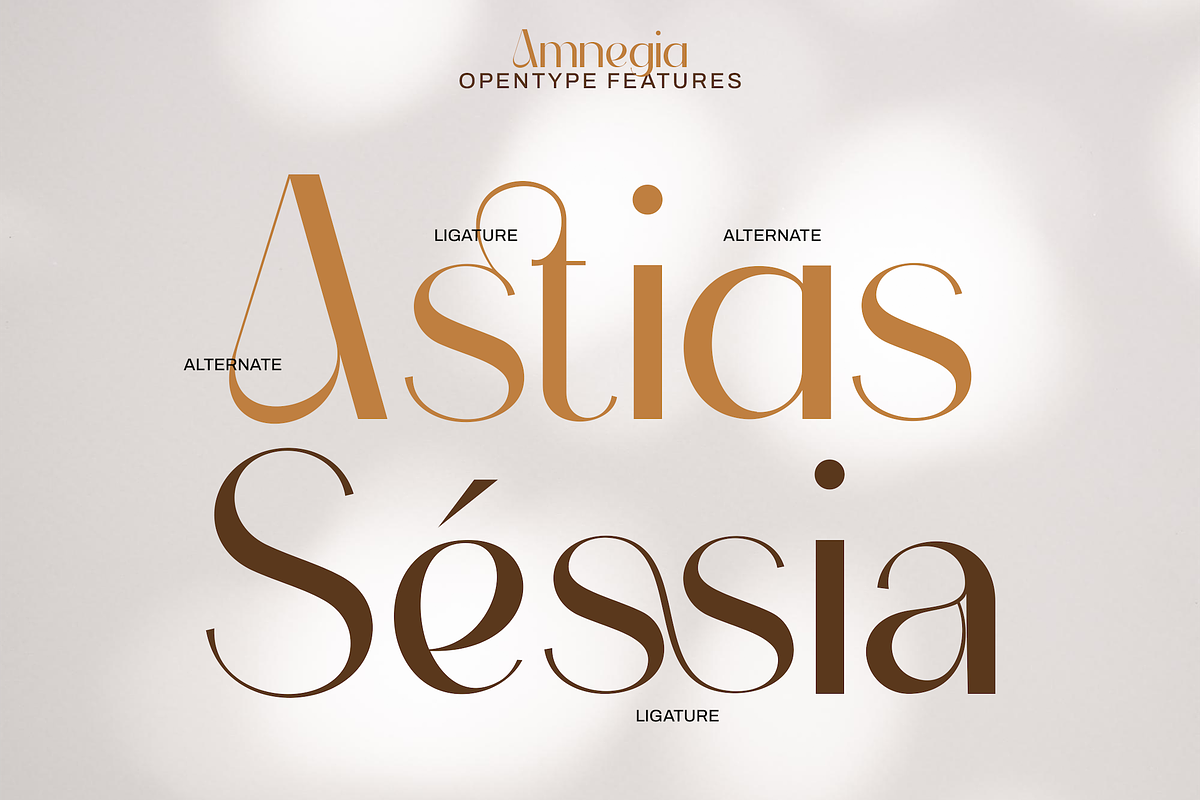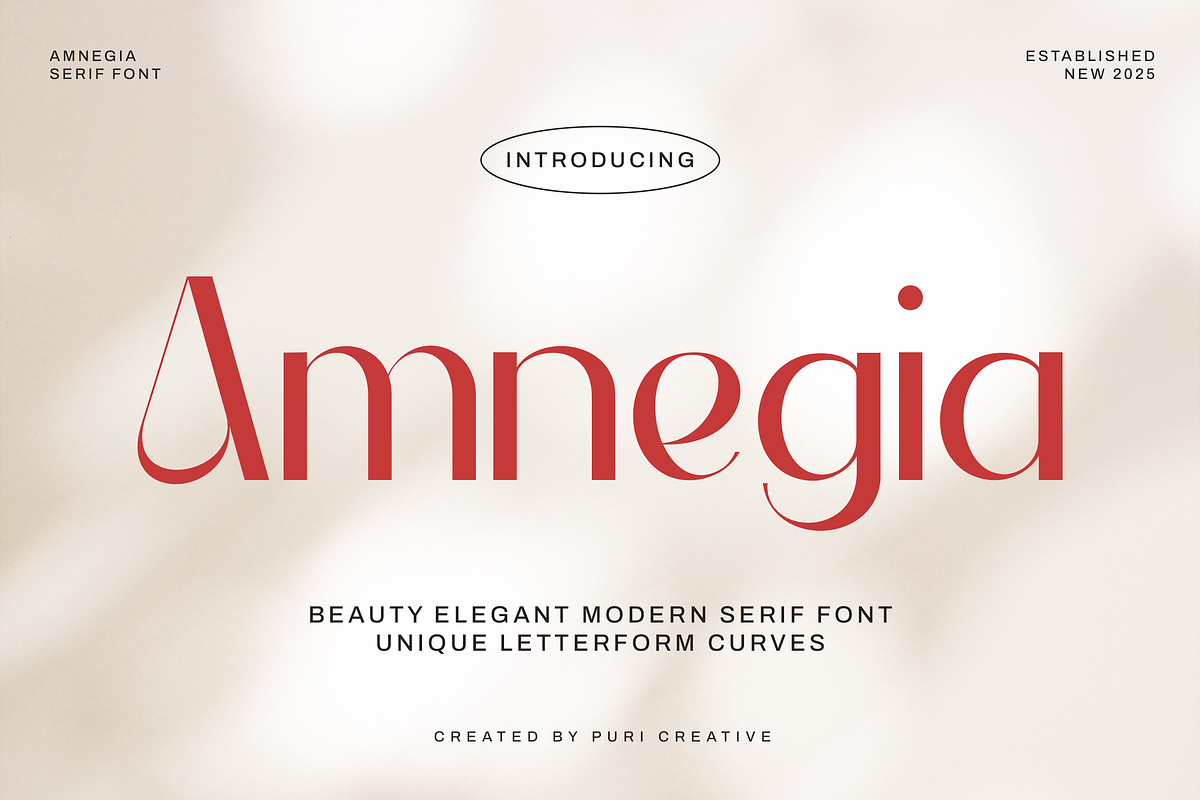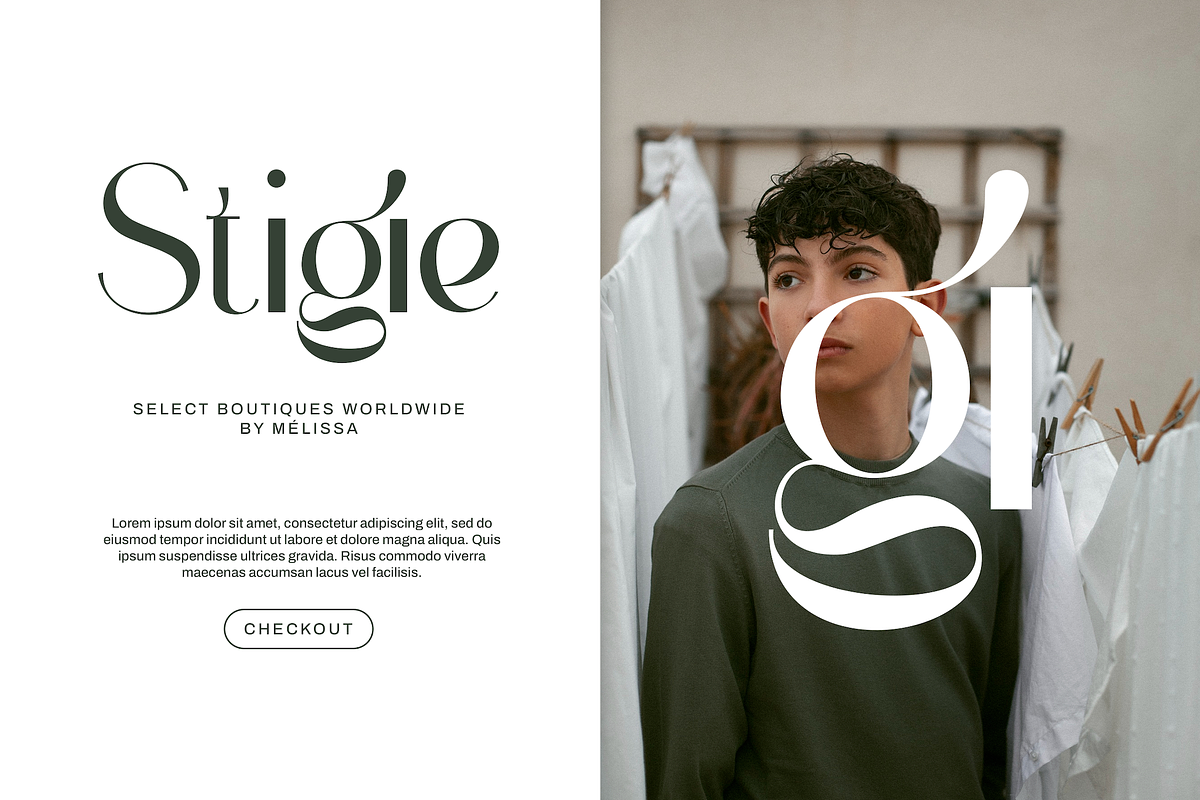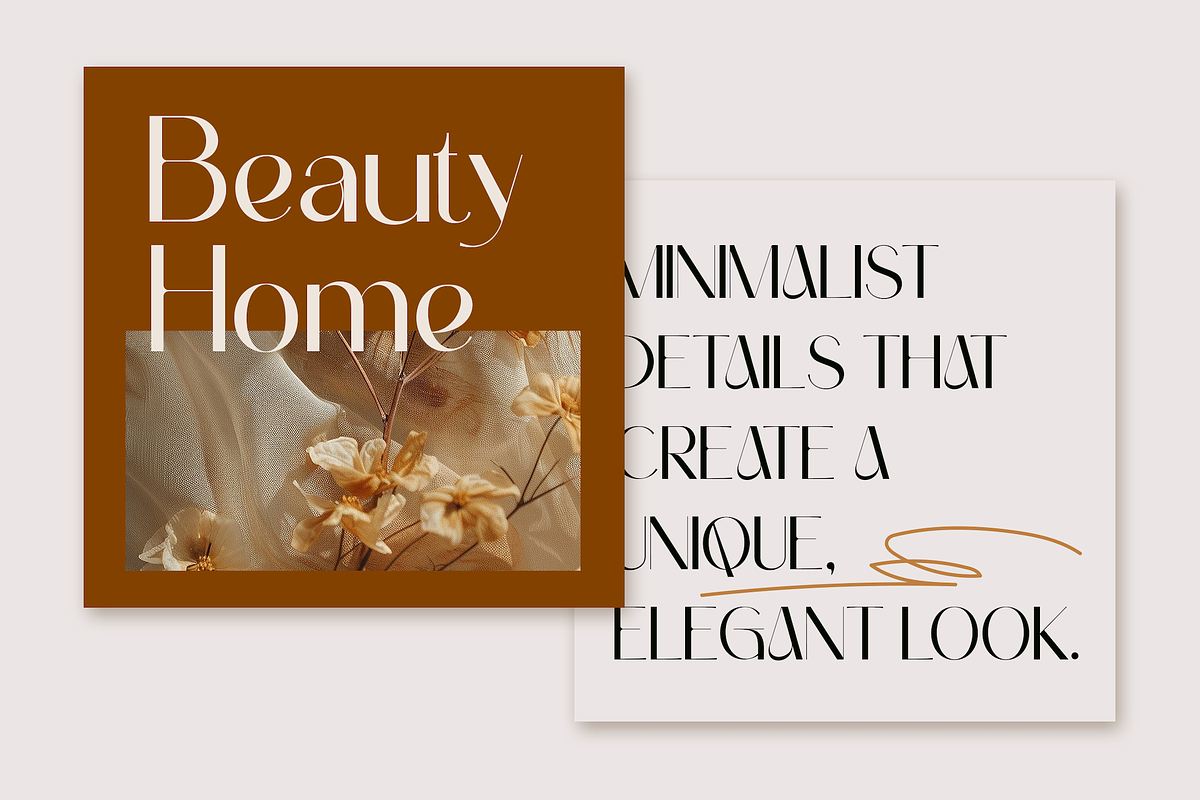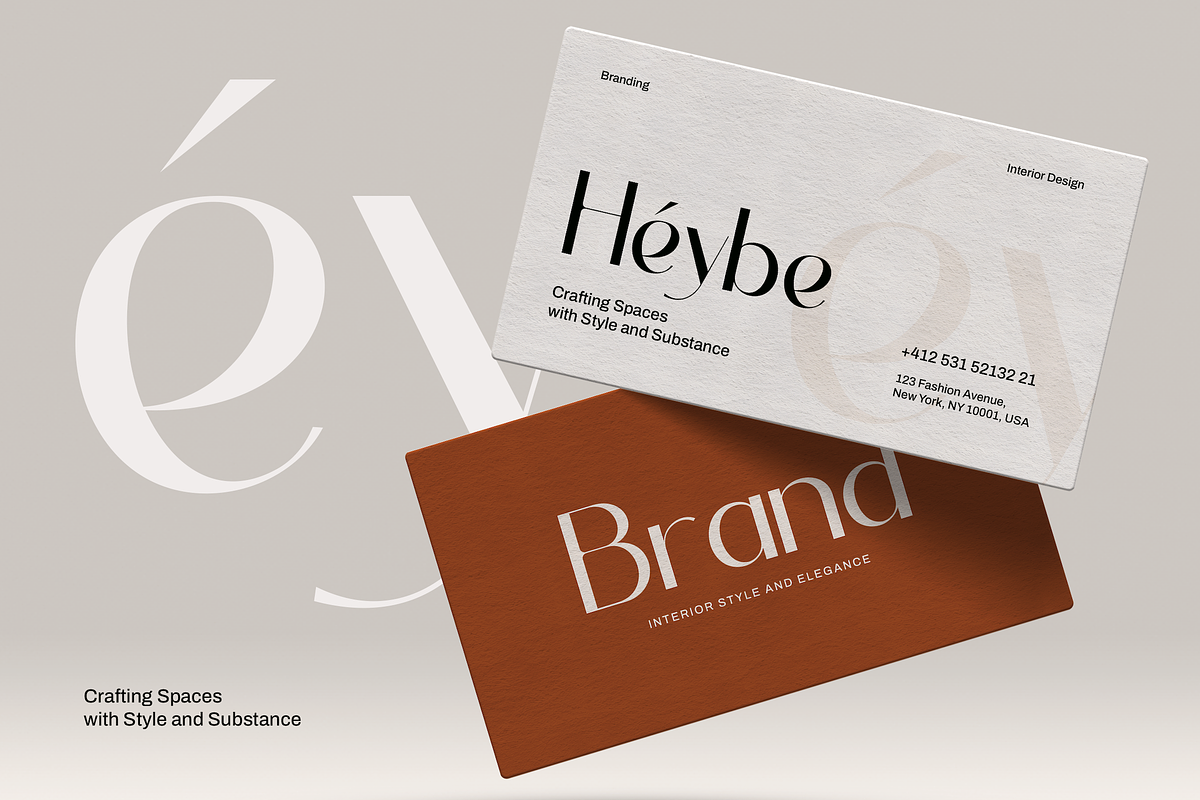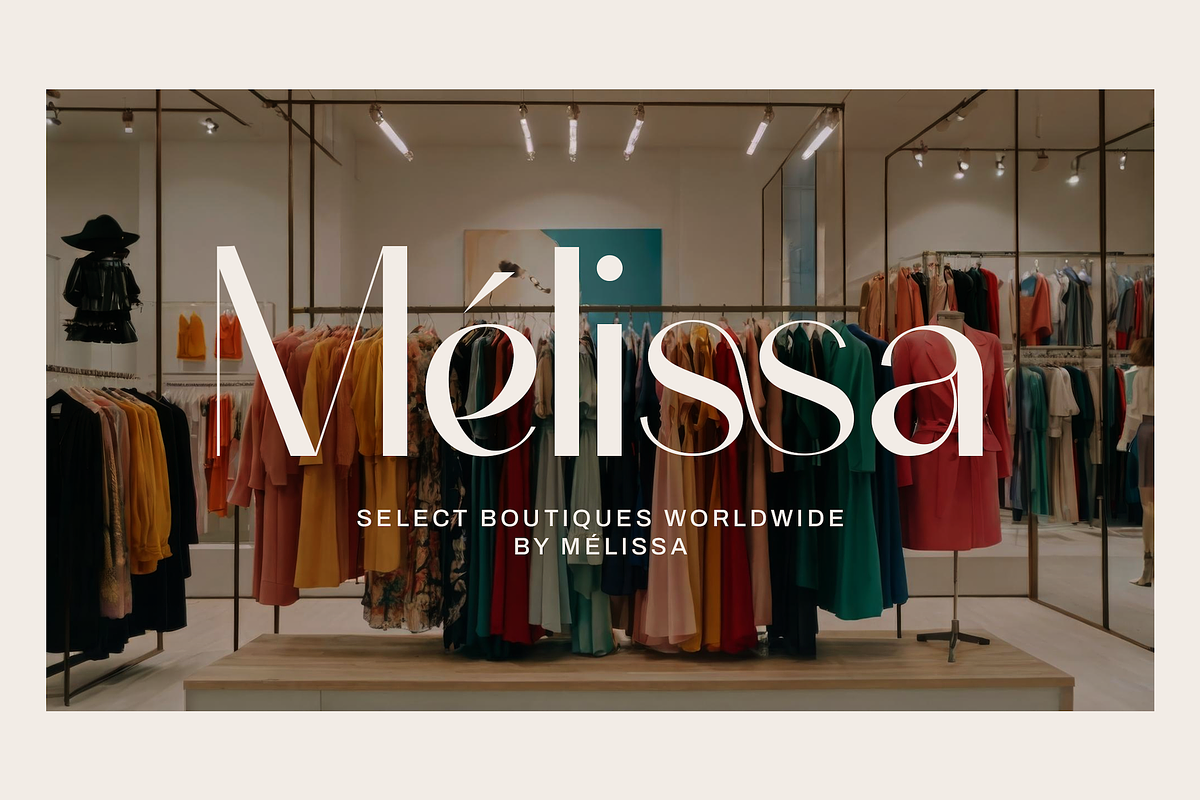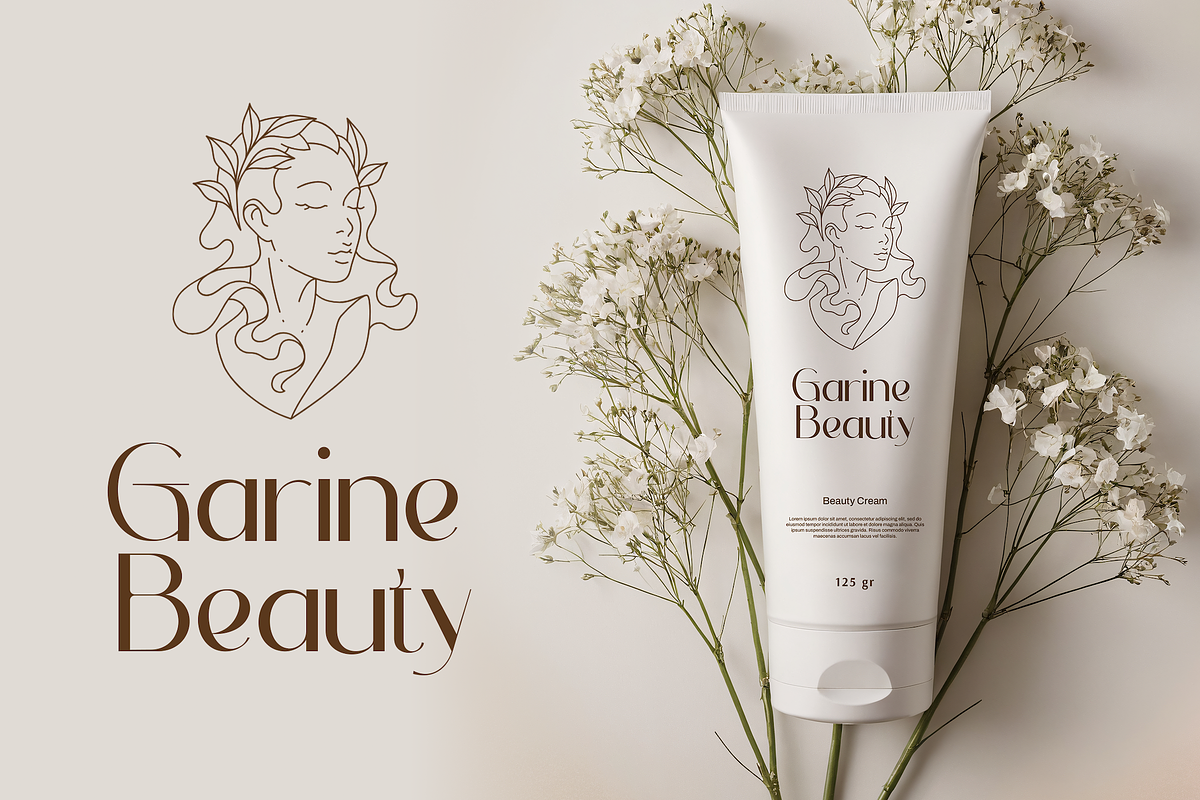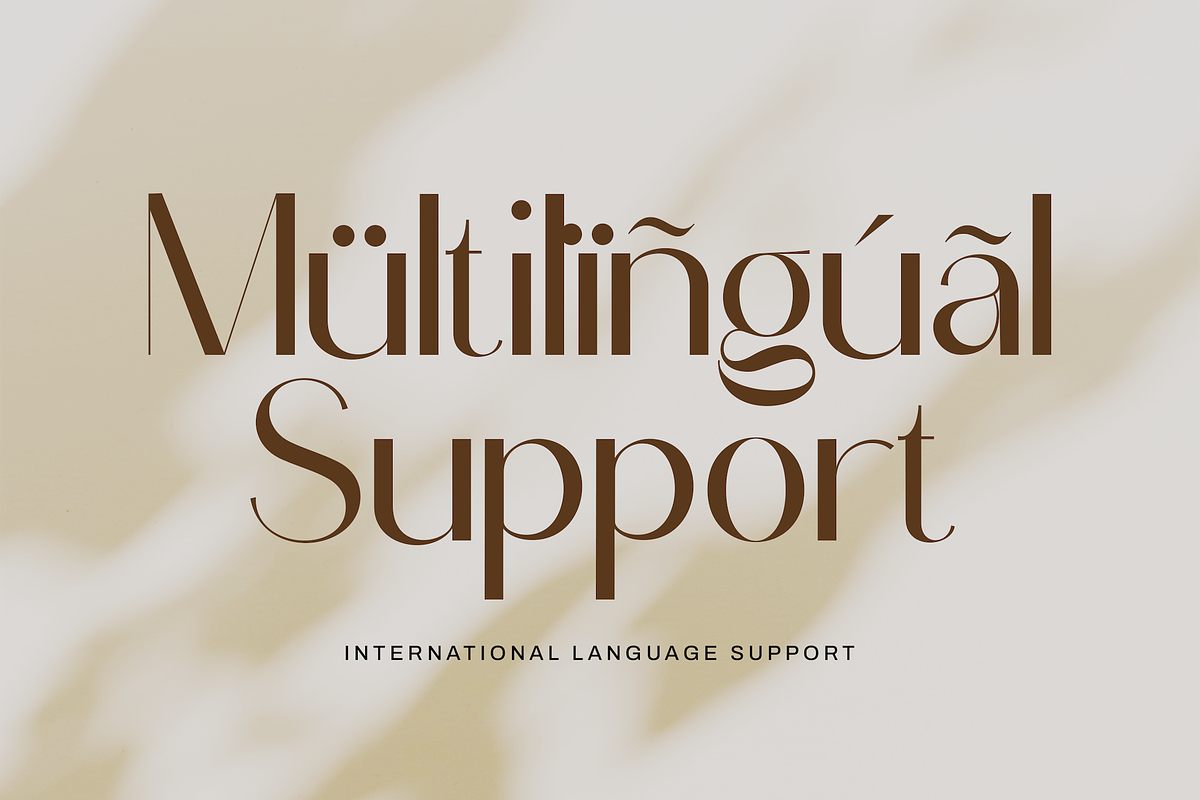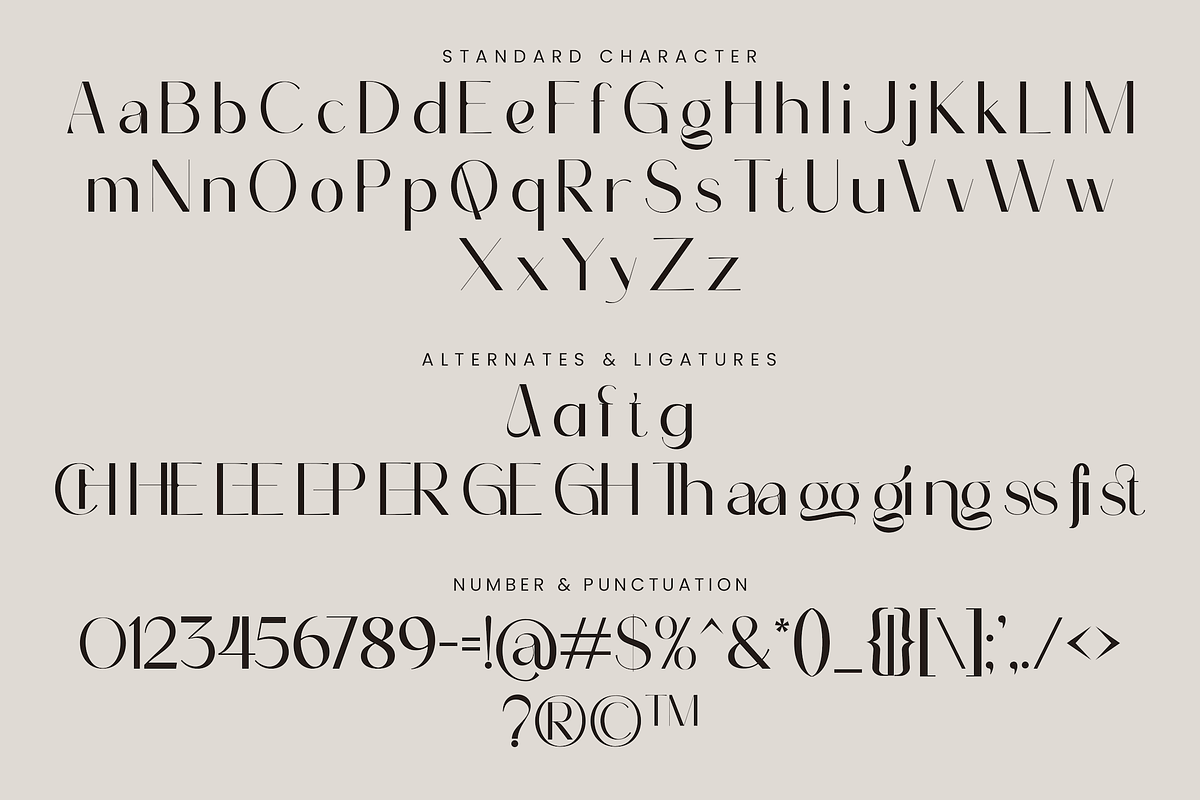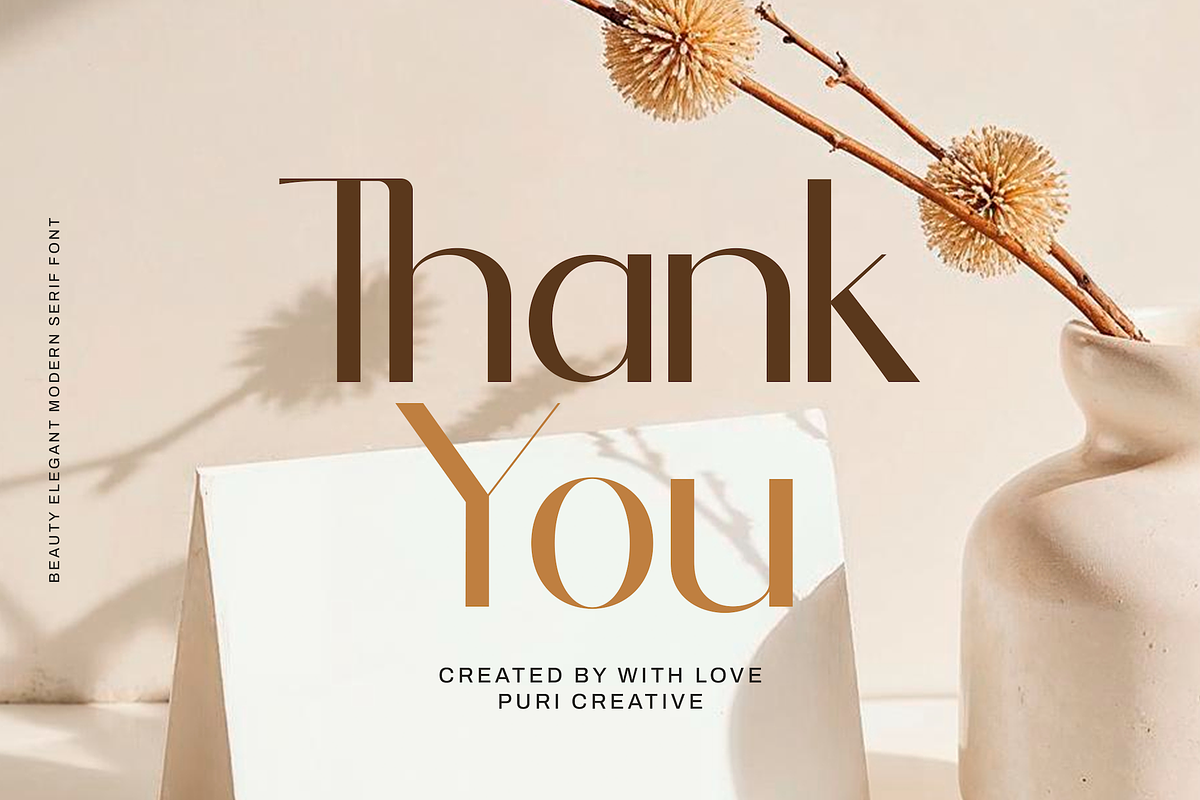
Amnegia - Beauty Elegant Sans Serif
Amnegia is a Sans Serif font with luxury, elegant, modern, unique and classy-look, ready to use on Magazine, Social Media, Branding, Logo, and Many more that needs Luxury touches. Amnegia come with clean lines and smooth curves give any project an extra touch of class.
- Multi Lingual Support